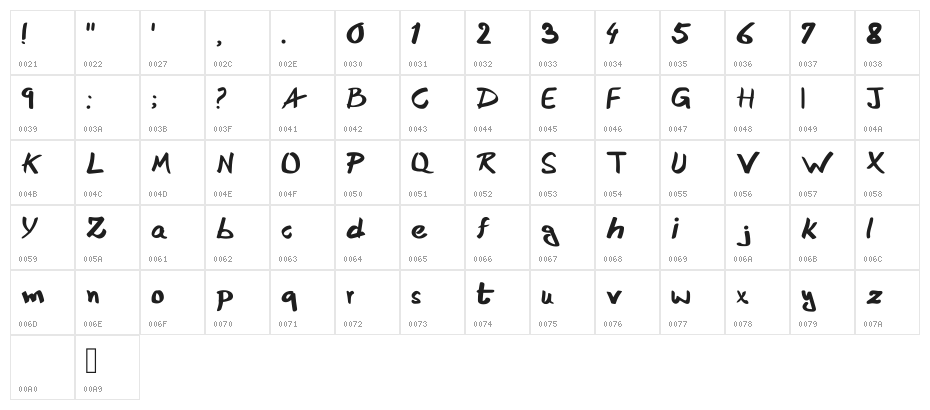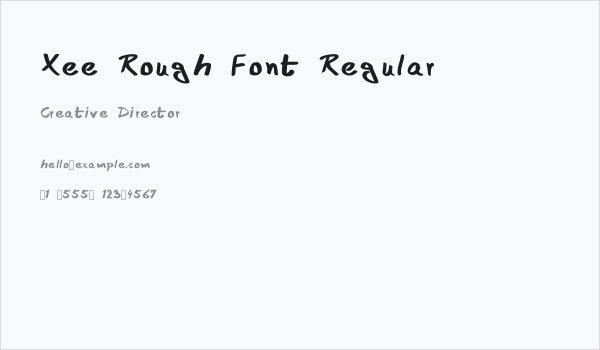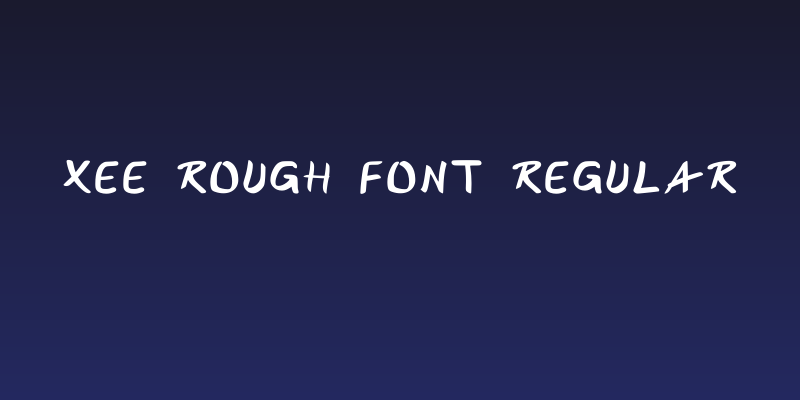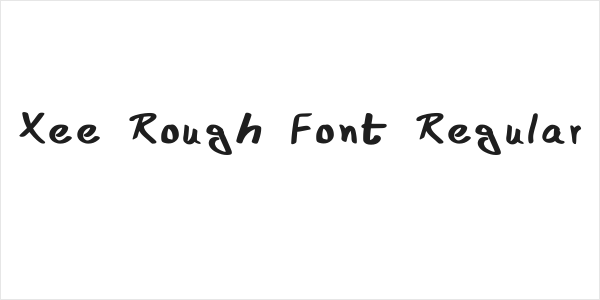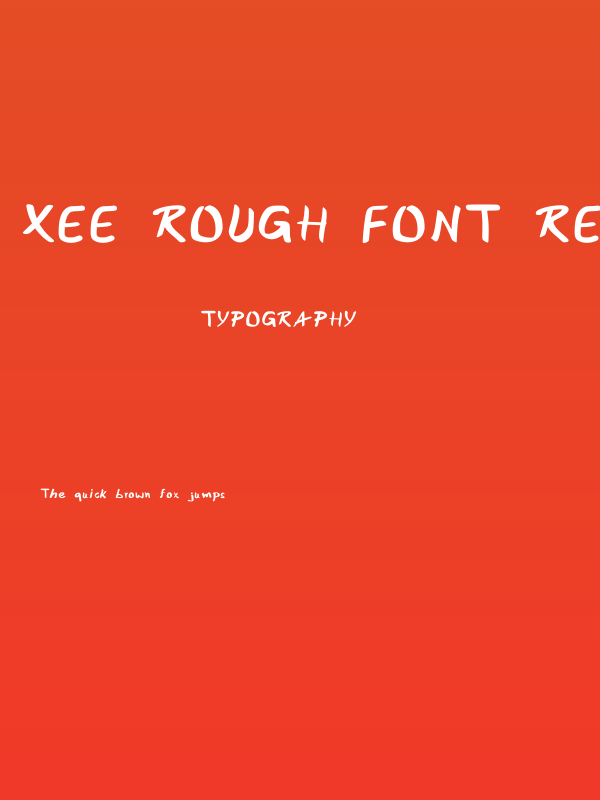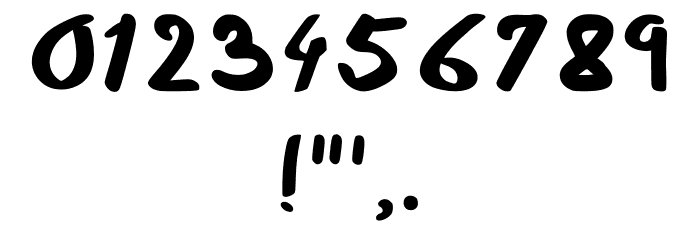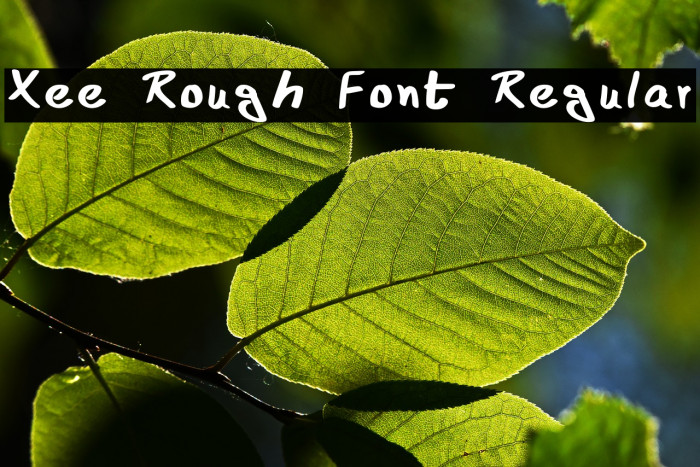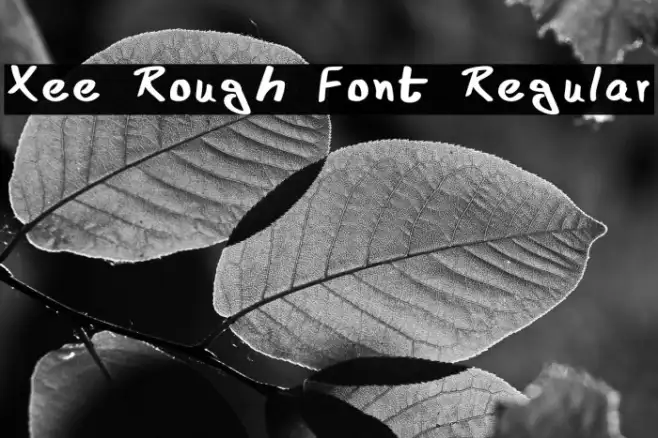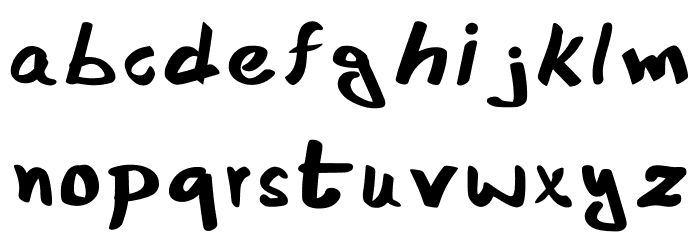
Xee Rough Font Regular Font
Xee Rough Font Regular Description
This font features a playful and energetic handwritten style, characterized by its bold and slightly irregular strokes. The letters have a casual, informal appearance, with a dynamic flow that suggests movement and spontaneity. The uppercase and lowercase letters maintain a consistent style, with rounded edges and varying stroke widths that add to its lively character. The numbers and special characters are designed to match the overall aesthetic, ensuring a cohesive look across all text elements. This font is well-suited for projects that require a fun and approachable feel.
Xee Rough Font
| Overall Style | Playful, Casual |
| Proposed Projects | Ideal for children's books, playful branding, casual invitations, and creative posters. |